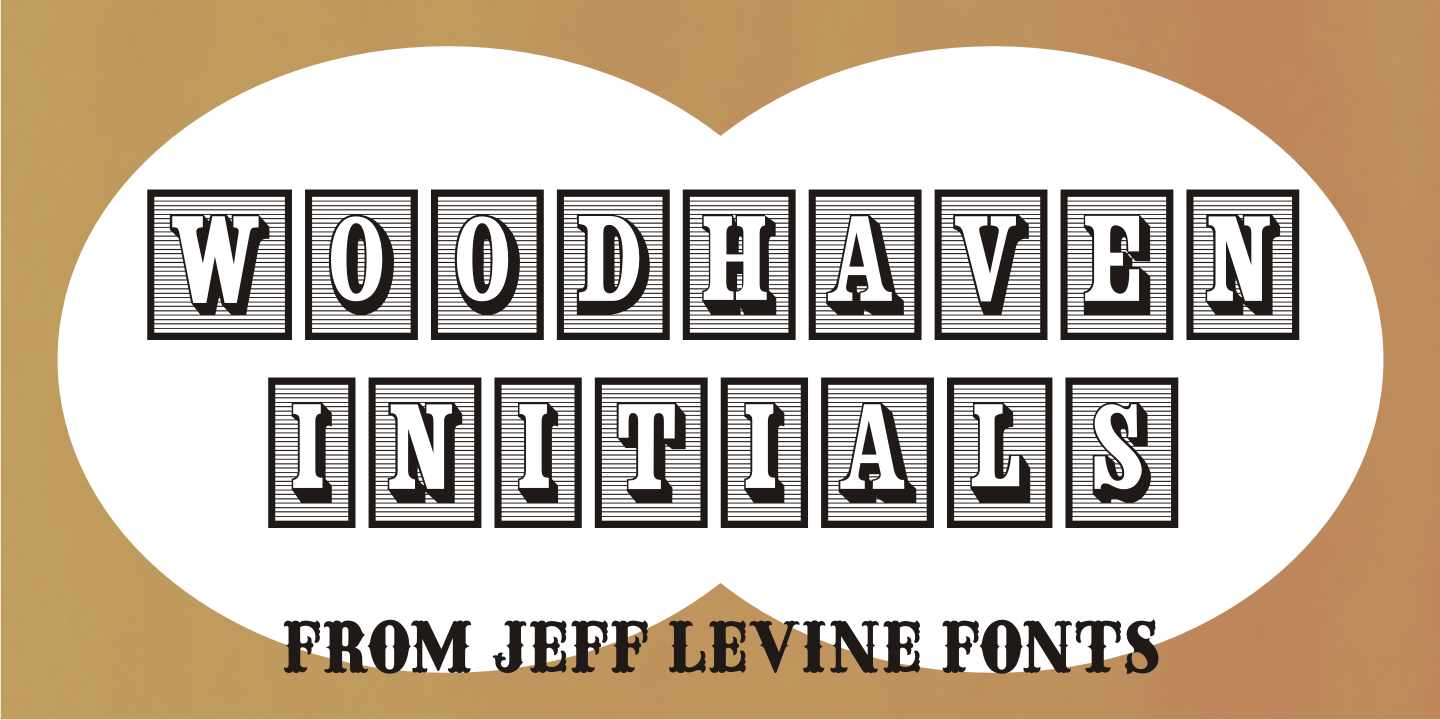
Woodhaven Initials
Woodhaven Initials JNL were designed using an outline cast shadow wood type set against a rectangle with horizontal 'engraving' lines to add background texture to the initials. An ampersand is on the corresponding keystroke, and a blank rectangle is on the period key.